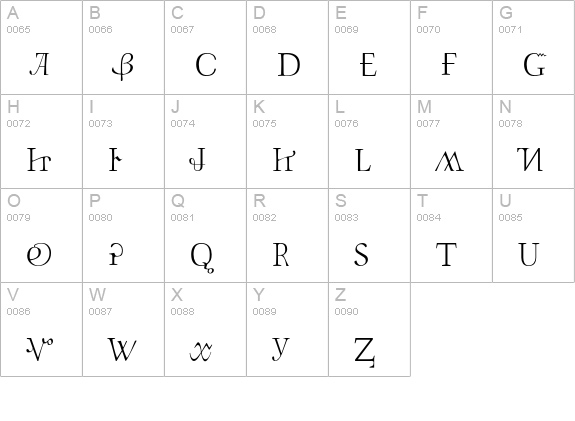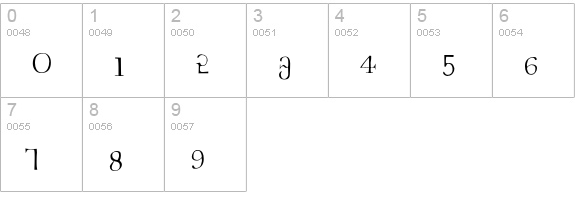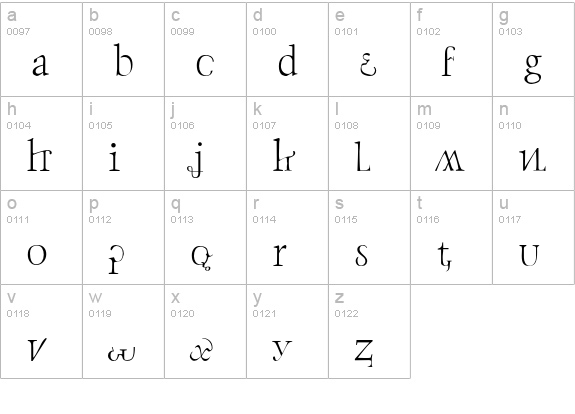
ElliottsSubluxationPerma Font Details
ElliottsSubluxationPerma font is a timeless and elegant typeface that exudes sophistication and charm. With its classic yet modern design, this font is perfect for a wide range of design projects, from wedding invitations to branding materials. The font features clean lines and subtle curves that add a touch of elegance to any text. What sets ElliottsSubluxationPerma font apart is its unique character and versatility. Whether you're looking to add a touch of class to your printed materials or want to make a statement with your digital designs, this font is sure to impress. Best of all, ElliottsSubluxationPerma font is available for free download at FontsMarket.com. So go ahead and elevate your projects with this beautiful and stylish typeface today!